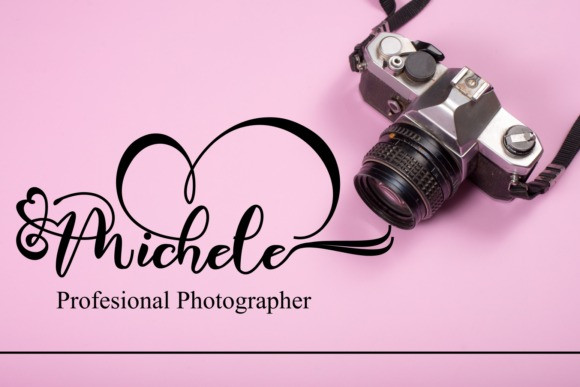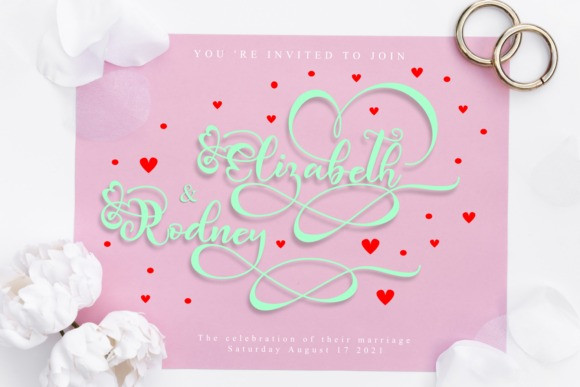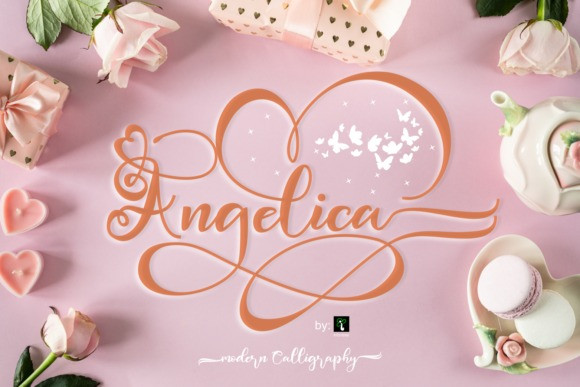
Angelica Typeface
Angelica Script Font is a thin lettered and graceful script font. Fall for its ravishing style and use it to create gorgeous wedding invitations, beautiful stationary art, eye-catching social media posts, and much more! Angelica is PUA encoded which means you can access all of the glyphs and swashes with ease!